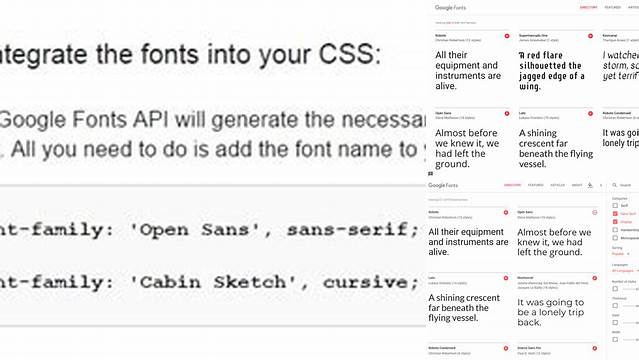
Google Fonts CSS: Optimize Your Website Typography
Hey guys! Ever wondered how to make your website look amazing with cool fonts without slowing it down? Let's dive into the world of Google Fonts CSS! Using Google Fonts is a fantastic way to enhance your website's typography and overall design. It provides access to a vast library of free, high-quality fonts that can be easily integrated into your projects. However, to leverage Google Fonts effectively, it's essential to understand how to use the https://fonts.googleapis.com/css
stylesheet link properly. This article will break down everything you need to know, from the basics to advanced techniques, ensuring your website looks stunning and performs optimally. We'll cover tips on choosing the right fonts, optimizing your CSS requests, and addressing common issues. So, buckle up and let’s get started on making your website typography pop!
What is Google Fonts CSS?
Google Fonts CSS refers to the stylesheet link provided by Google Fonts (https://fonts.googleapis.com/css
) that allows you to embed fonts into your website. It's a simple yet powerful way to access a vast library of fonts without hosting them on your own server. By including this link in your HTML, you can specify the fonts you want to use and the browser will download them directly from Google's servers. This approach not only simplifies font management but also leverages Google's global CDN for fast and reliable delivery. This is super important because a slow website is a no-go in today's world. Google Fonts CSS makes it easy to add personality to your website without sacrificing performance. It's like giving your site a makeover with a fresh wardrobe of fonts, all without breaking the bank or slowing things down. Using Google Fonts CSS is like having a personal stylist for your website's typography – it helps you pick the perfect fonts to match your brand and style, ensuring your message is delivered loud and clear.
How to Link Google Fonts CSS in Your HTML
Linking Google Fonts CSS in your HTML is super straightforward. First, you hop over to the Google Fonts website and pick the font (or fonts!) that tickle your fancy. Once you've chosen your fonts, Google Fonts gives you a snippet of HTML code to add to your website. This snippet is usually a <link>
tag that points to the Google Fonts CSS stylesheet. You simply copy this <link>
tag and paste it into the <head>
section of your HTML document. Make sure you place it before your main CSS stylesheet to ensure the fonts are loaded before they're used. This way, your website visitors will see your beautiful fonts right away. It's like setting the stage for a great performance – you want the spotlight on your fonts from the get-go. You can also specify font weights and styles (like bold or italic) in the link to make sure you have the variations you need. Linking Google Fonts CSS is the first step to making your website stand out, and it’s as easy as copy-paste!
Choosing the Right Google Fonts
Choosing the right Google Fonts is like picking the perfect outfit for an occasion – it can make all the difference! You want fonts that not only look great but also match your website's style and purpose. Think about your brand: Are you going for a modern, sleek look, or something more classic and elegant? Different fonts evoke different feelings, so it’s important to choose wisely. For example, a clean sans-serif font might be perfect for a tech company, while a serif font could lend a touch of sophistication to a law firm’s website. Also, consider readability. A fancy font might look cool, but if it's hard to read, people will bounce. Stick to fonts that are clear and easy on the eyes, especially for body text. And don't be afraid to mix and match! Pairing a bold heading font with a simple body font can create a visually appealing hierarchy. Picking the right fonts is like crafting the perfect melody – it needs to be harmonious and memorable.
Optimizing Google Fonts CSS for Performance
Optimizing Google Fonts CSS for performance is crucial for a fast-loading website. Nobody likes a slow website, so let's keep things speedy! One key trick is to only load the font weights and styles you actually need. If you're only using regular and bold, don't load the italics or extra-bold weights. This reduces the file size and speeds up download times. Another tip is to use the preconnect
and preload
link attributes. preconnect
tells the browser to establish a connection to Google Fonts' servers early on, and preload
tells the browser to download the font files as soon as possible. These tweaks can shave precious milliseconds off your load time. You can also consider using font-display: swap; in your CSS to ensure text is visible even before the fonts are fully loaded. This prevents the dreaded “invisible text” flash. Optimizing Google Fonts CSS is like fine-tuning a race car – every little adjustment can make a big difference in performance.
Understanding Font Weights and Styles
Understanding font weights and styles is essential for creating visually appealing and readable content. Font weight refers to the thickness of the font, ranging from thin to extra-bold, while font style typically refers to italics. Google Fonts offers a variety of weights and styles for each font, allowing you to add emphasis and hierarchy to your text. Using different weights can help draw attention to headings and important information, while italics can be used for quotes or specific terms. However, it’s important to use weights and styles judiciously. Too many variations can clutter your design and slow down your website. Stick to a limited set of weights and styles that complement your overall design. Think of font weights and styles as the spices in your dish – a little can enhance the flavor, but too much can ruin the meal. Using them effectively can make your text more engaging and easier to read, keeping your visitors hooked.
Using Google Fonts with Different CSS Frameworks
Using Google Fonts with different CSS frameworks like Bootstrap, Tailwind CSS, or Materialize is usually a breeze. These frameworks are designed to be flexible and work well with external resources like Google Fonts. The basic process remains the same: you grab the <link>
tag from Google Fonts and paste it into the <head>
H2: Using Font-Display for Performance
Using font-display
is a fantastic way to improve the perceived performance of your website. This CSS property controls how fonts are displayed while they're loading. There are several values you can use, but one of the most popular is swap
. With font-display: swap;
, the browser will initially display text in a fallback font, and then swap to your custom font once it's loaded. This prevents the dreaded